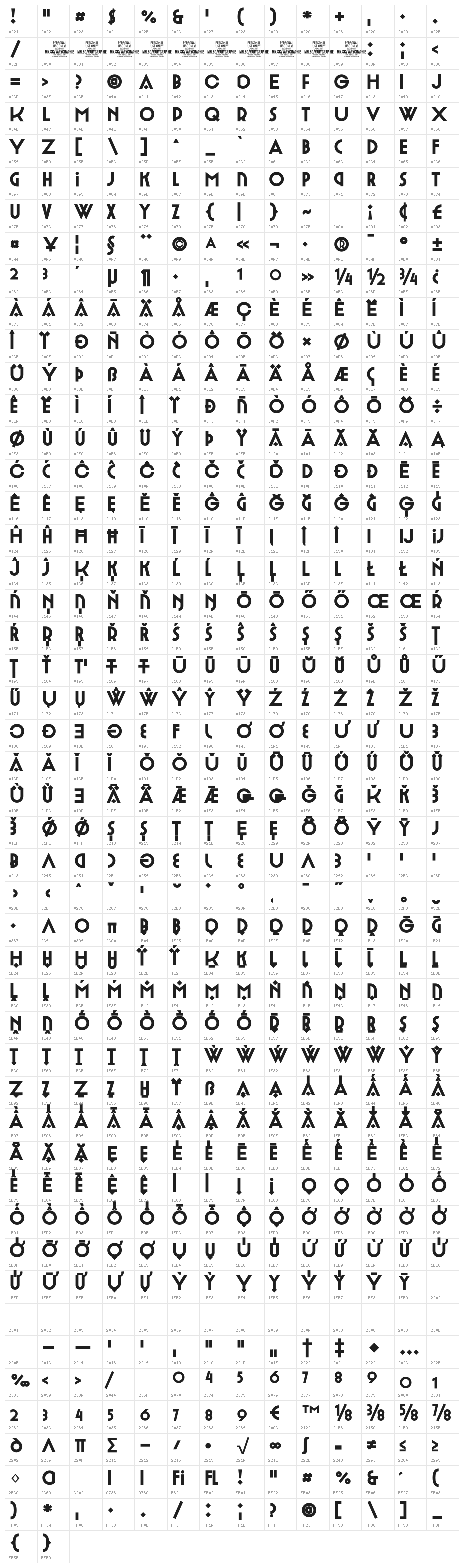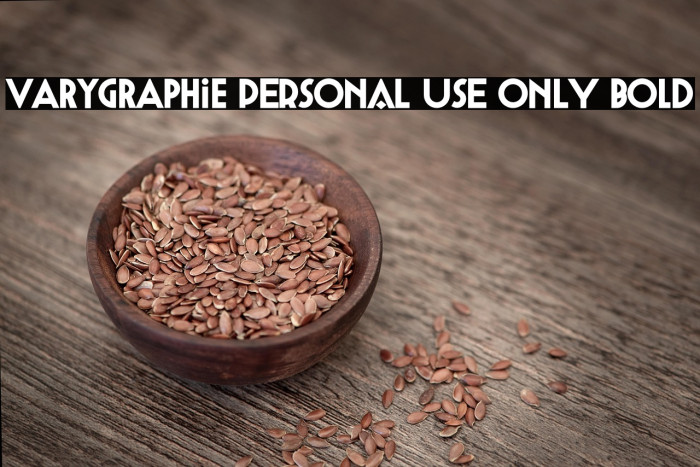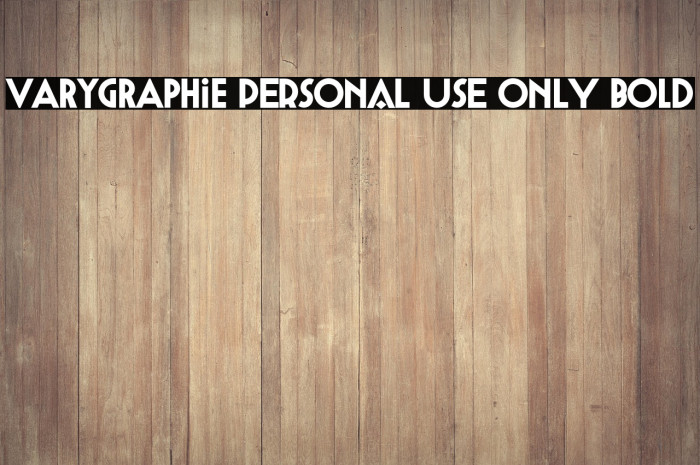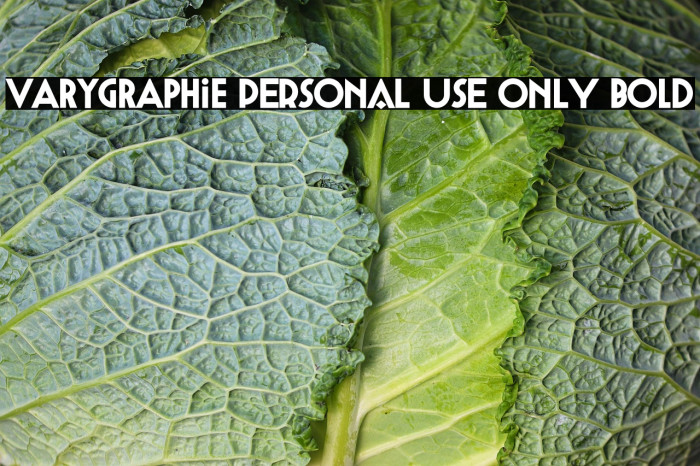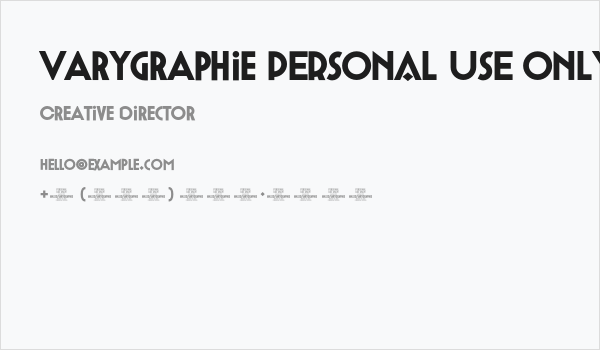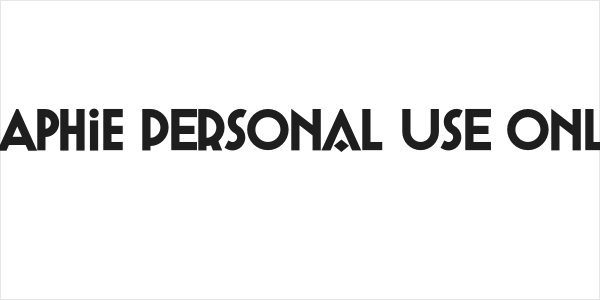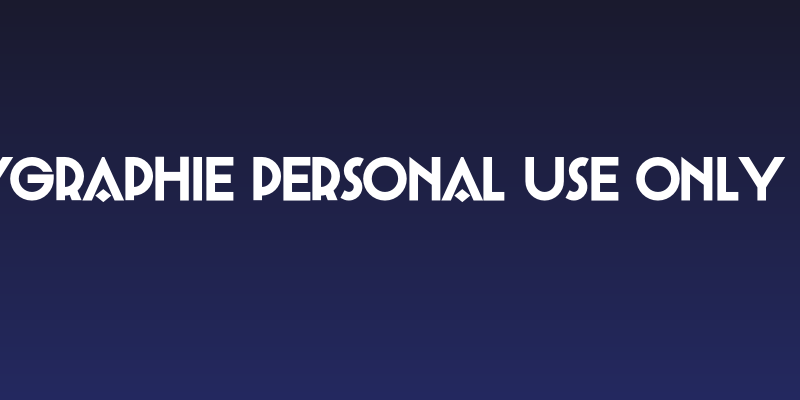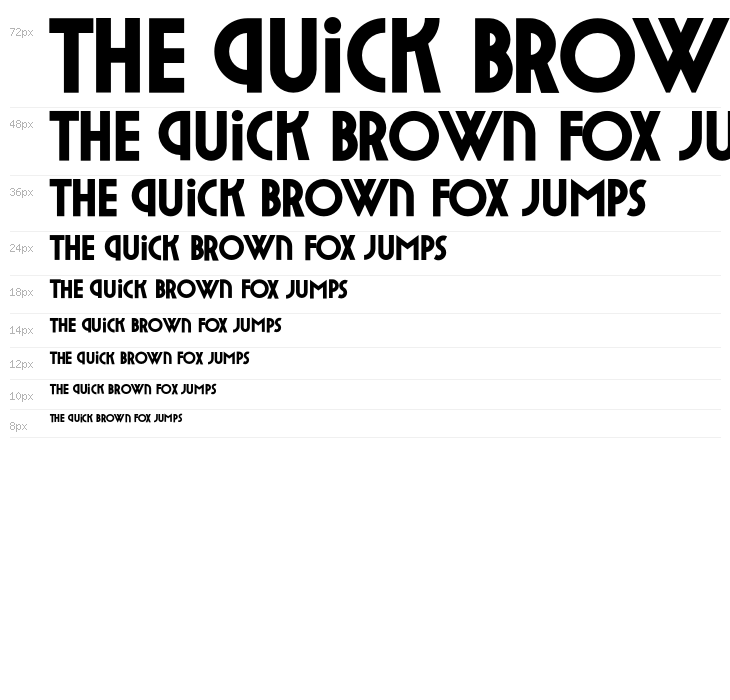
Varygraphie PERSONAL USE ONLY Bold Font
Varygraphie PERSONAL USE ONLY Bold Description
This font features a bold and geometric style, characterized by sharp angles and clean lines. The uppercase letters have a strong presence with a futuristic and modern aesthetic. The lowercase letters maintain the same boldness, ensuring consistency throughout the typeface. The numerals and special characters are designed to match the overall style, providing a cohesive look. This font is ideal for making a statement, with its striking appearance and unique character shapes.
| Proposed Projects | Ideal for branding, posters, headlines, and any design project that requires a strong visual impact. |